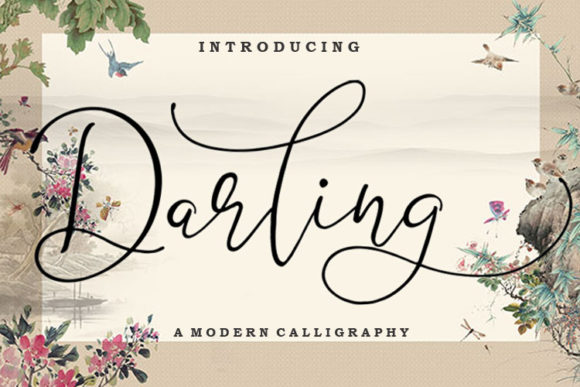
Darling Font
About Darling Font
Darling simplifies elegance into one truly outstanding handwritten font. It maintains its classy calligraphic influences while feeling contemporary and fresh. Whether it’s for web, print, moving images or anything else – Darling will look spectacular.